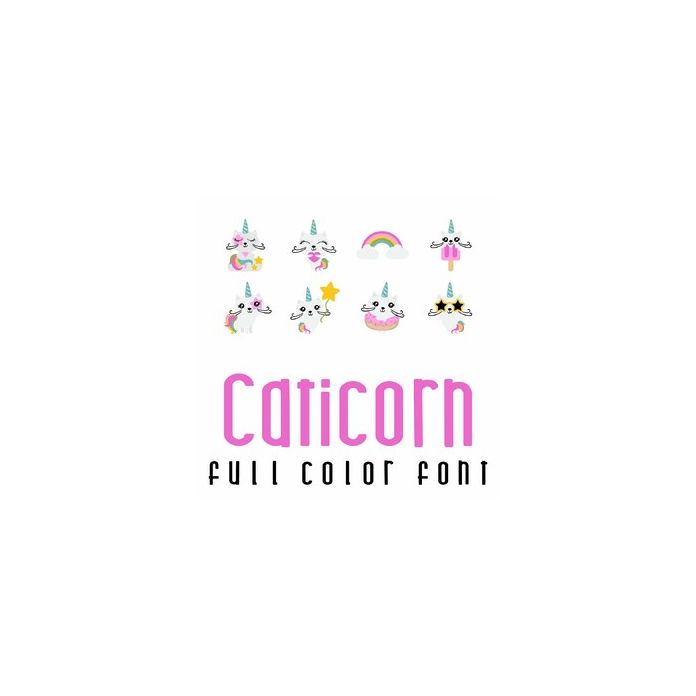
This adorable full color font features 26 caticorns purr-fect for summer! Use this font to create fun cards, crafts, gifts, decor, parties, planner stickers, scrap book pages and more!